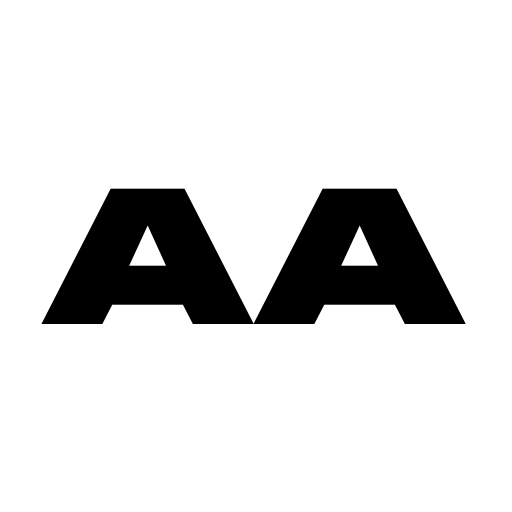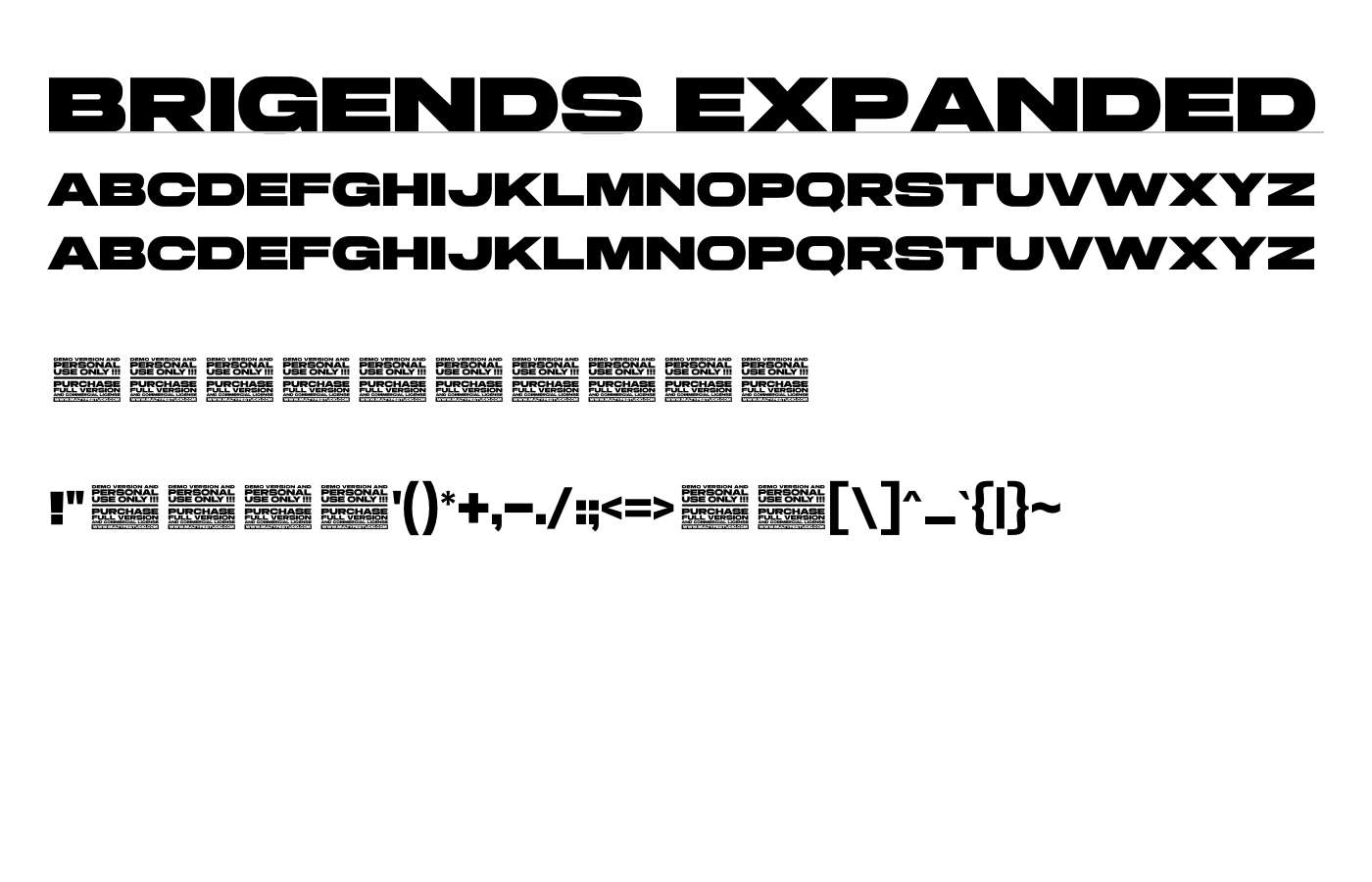
Brigends Expanded is a bold, wide sans serif font characterized by its strong, geometric shapes and uniform stroke thickness, giving it a powerful and modern appearance. Its uppercase-only design, sharp angles, and solid presence make it ideal for headlines, logos, and branding that require a commanding and impactful visual style. This font works well in contexts where clarity and boldness are essential, such as posters, sports branding, and dynamic digital media.
Brigends Expanded Font
About Brigends Expanded Font
| Designer | Mulia Yanto |